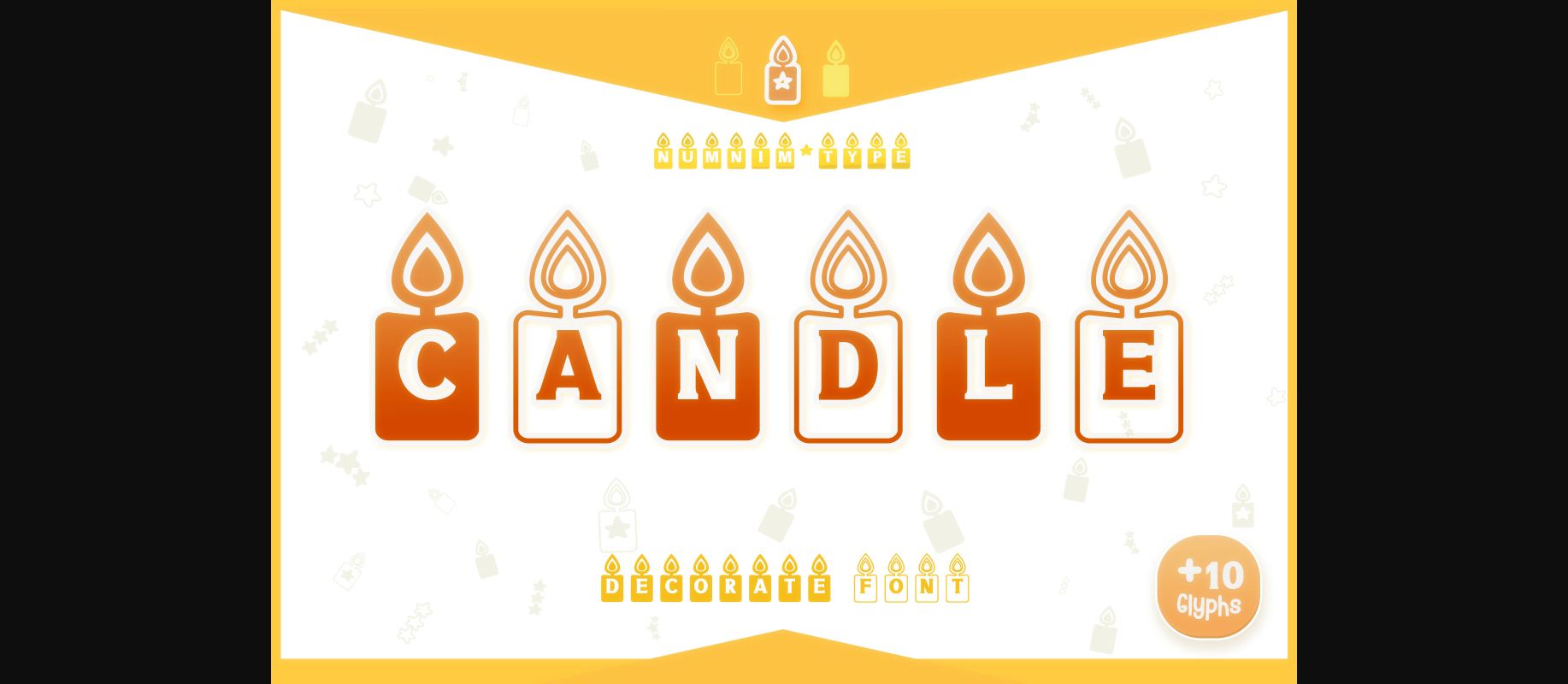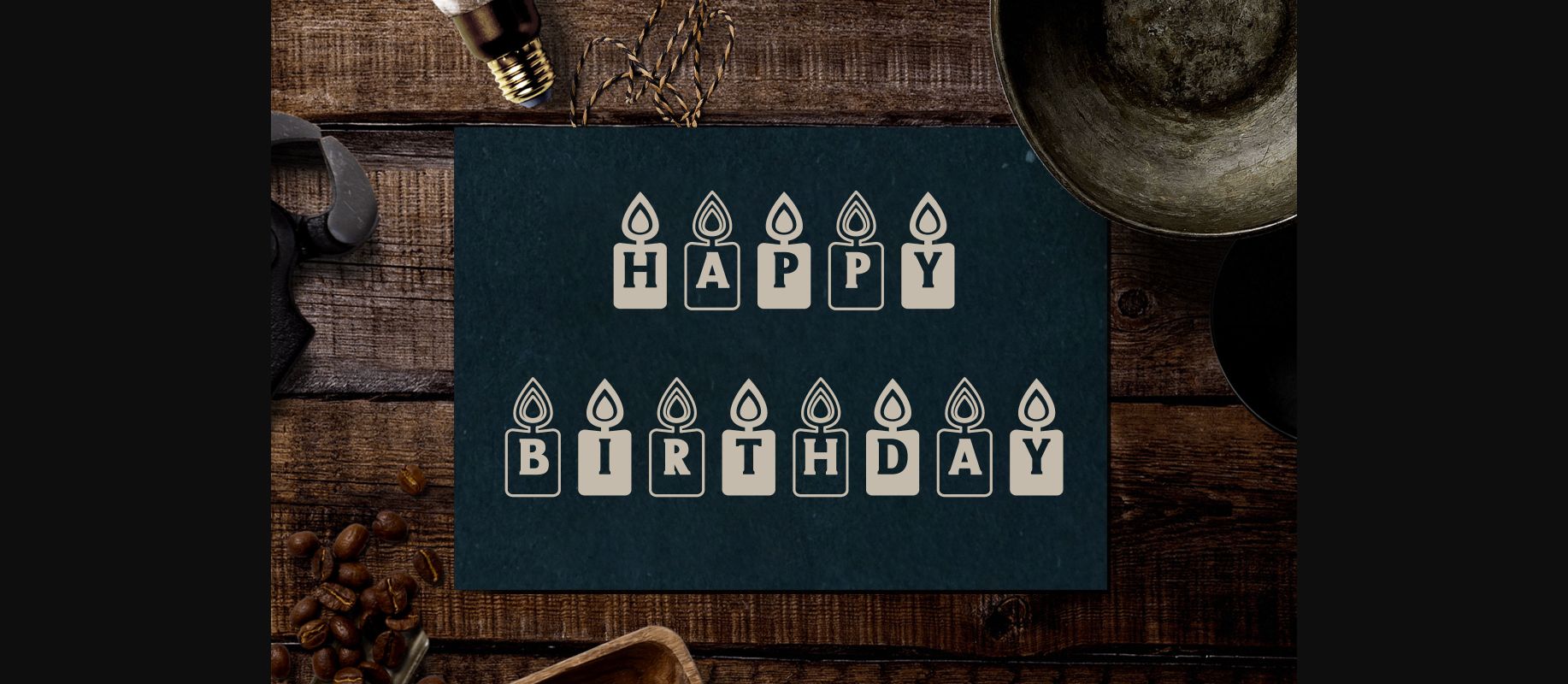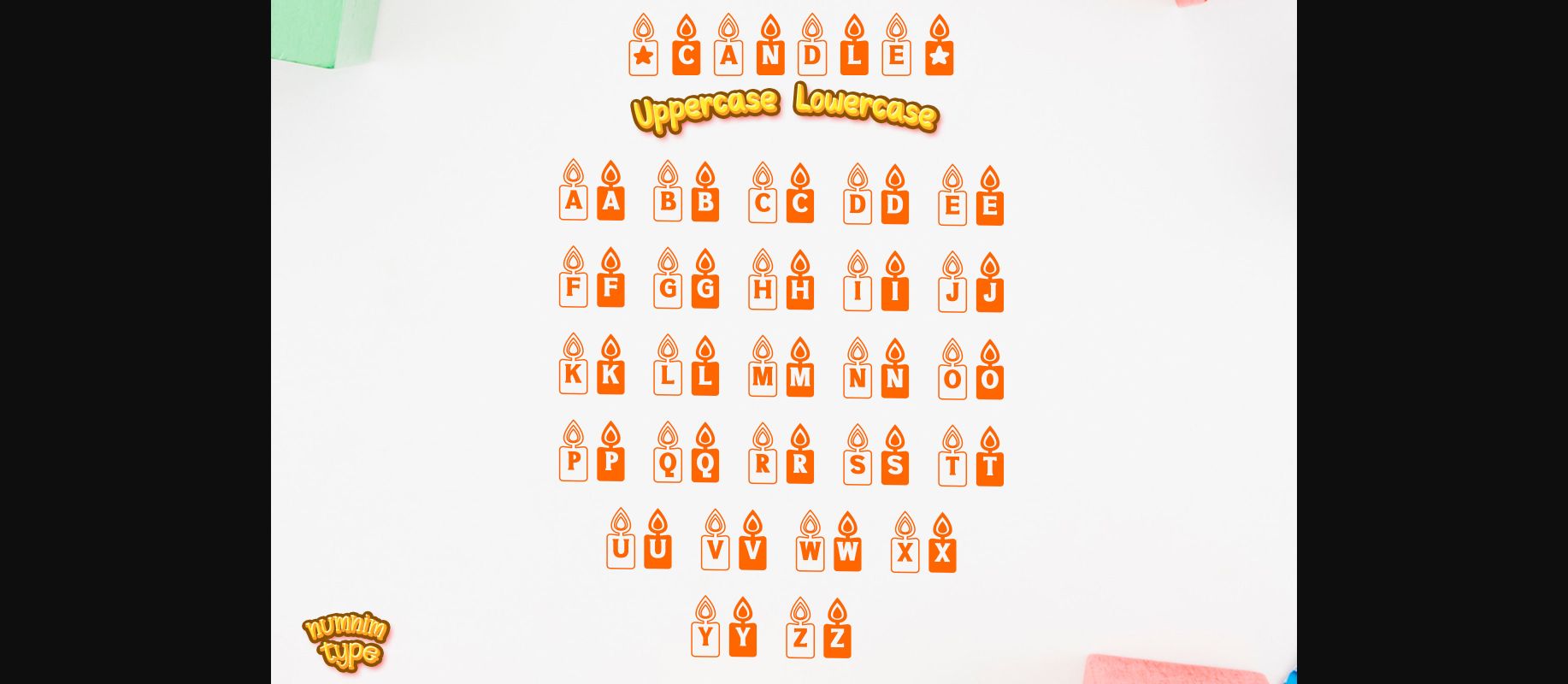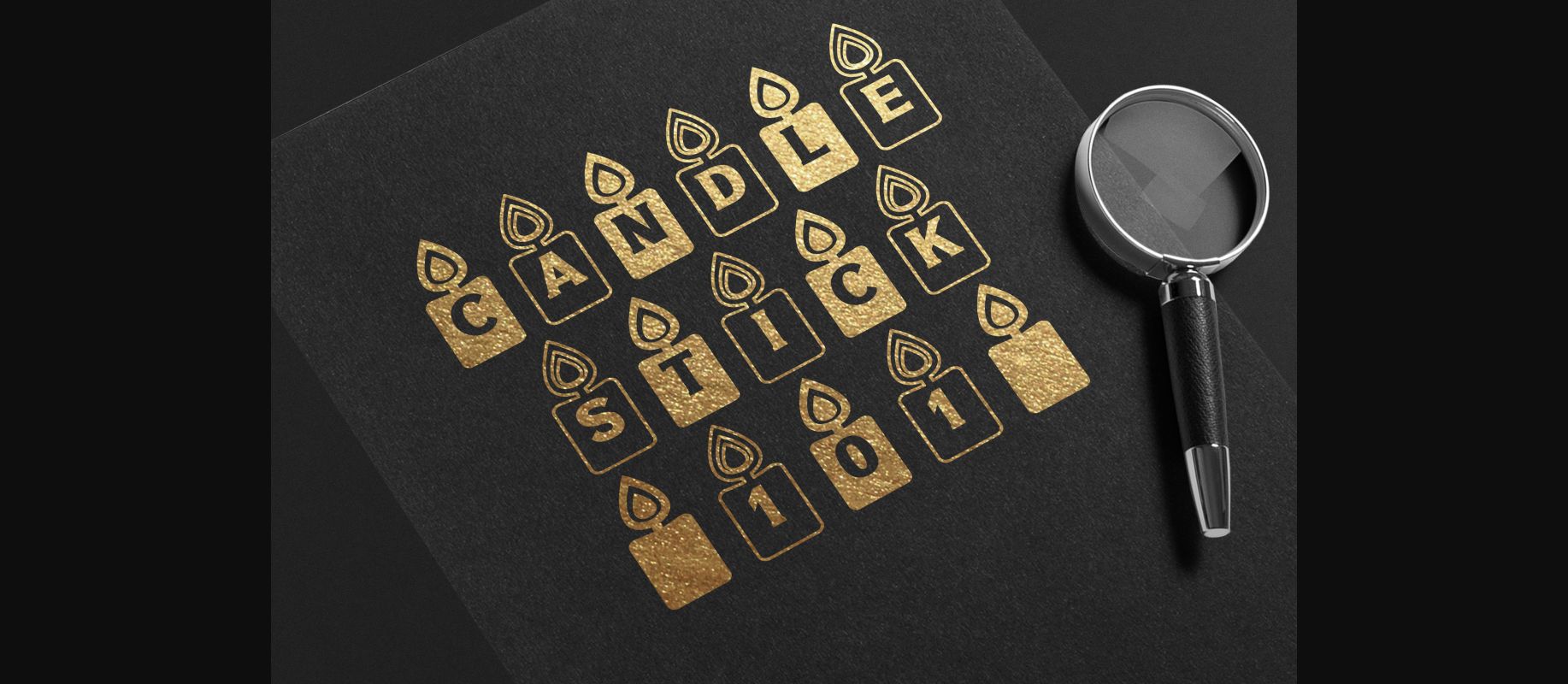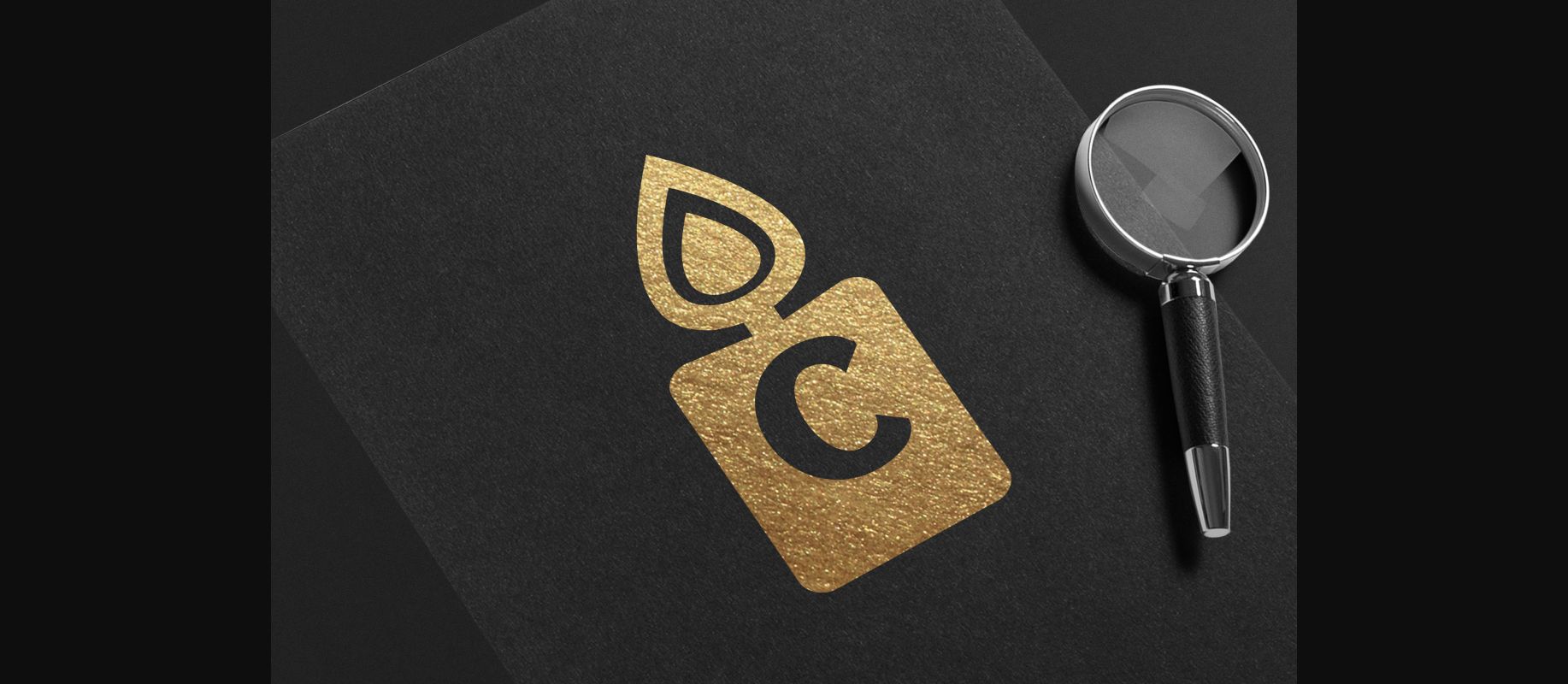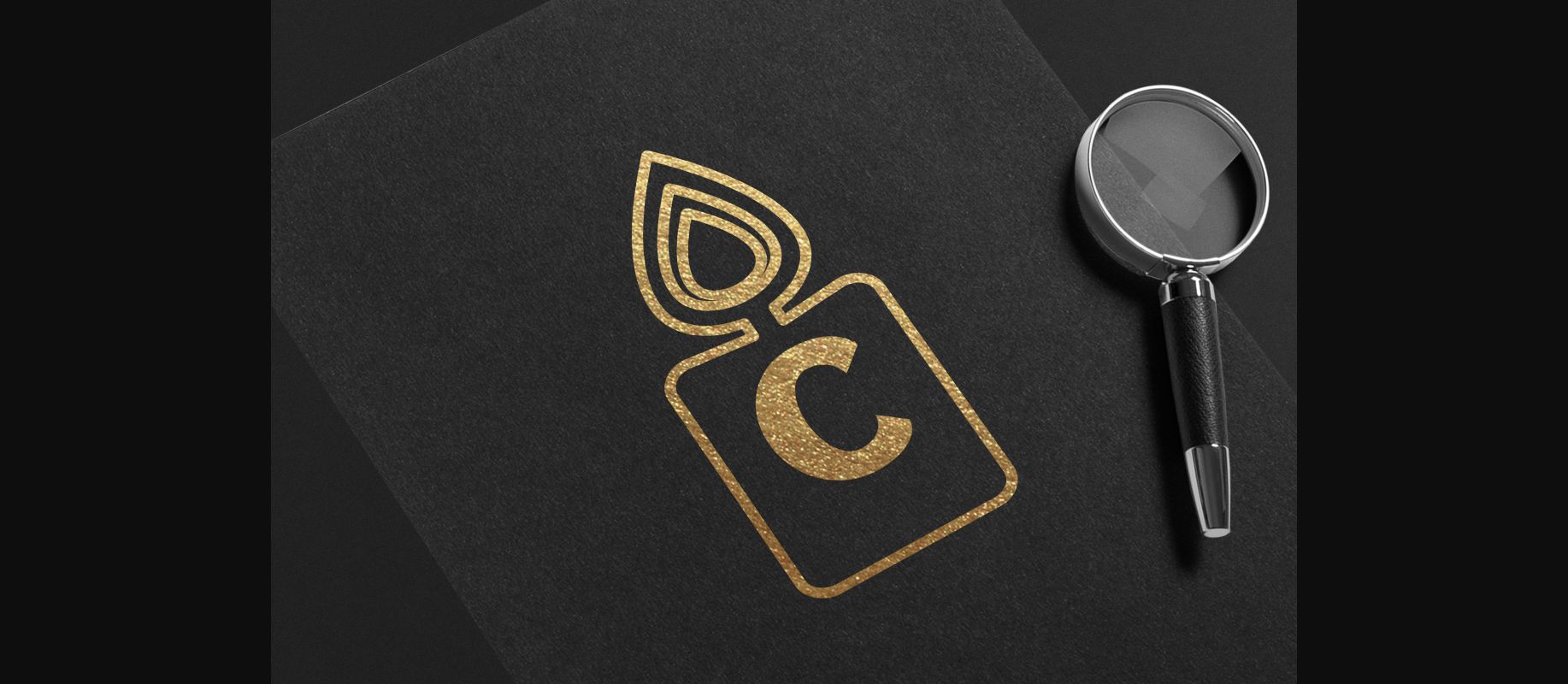
Candle Font
About Candle Font
Candle is a cool and uniquely designed decorative font, that will truly inspire each of your works. Use this font for any crafting project that requires a personalized vintage look!